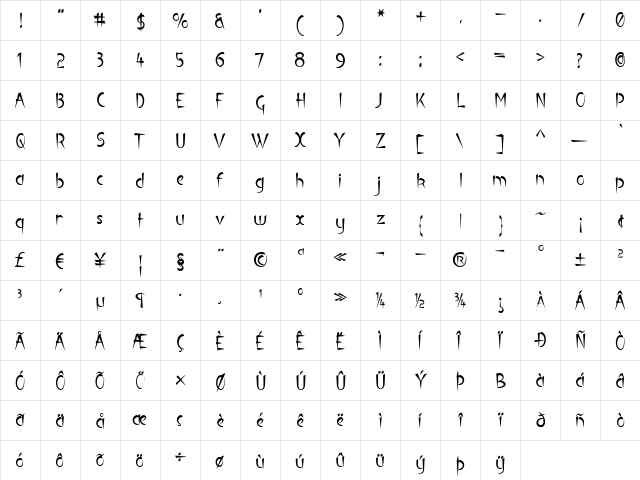
Luteous Viscous Regular
| Designer | Graham Meade & Rich Parks |
Design Context for Luteous Viscous Typeface
Luteous Viscous is a composed and adaptable typeface that performs quietly and consistently across a wide range of design contexts.
Pro Tip: Use Luteous Viscous in both headline and body roles to test its range before committing to a single application.